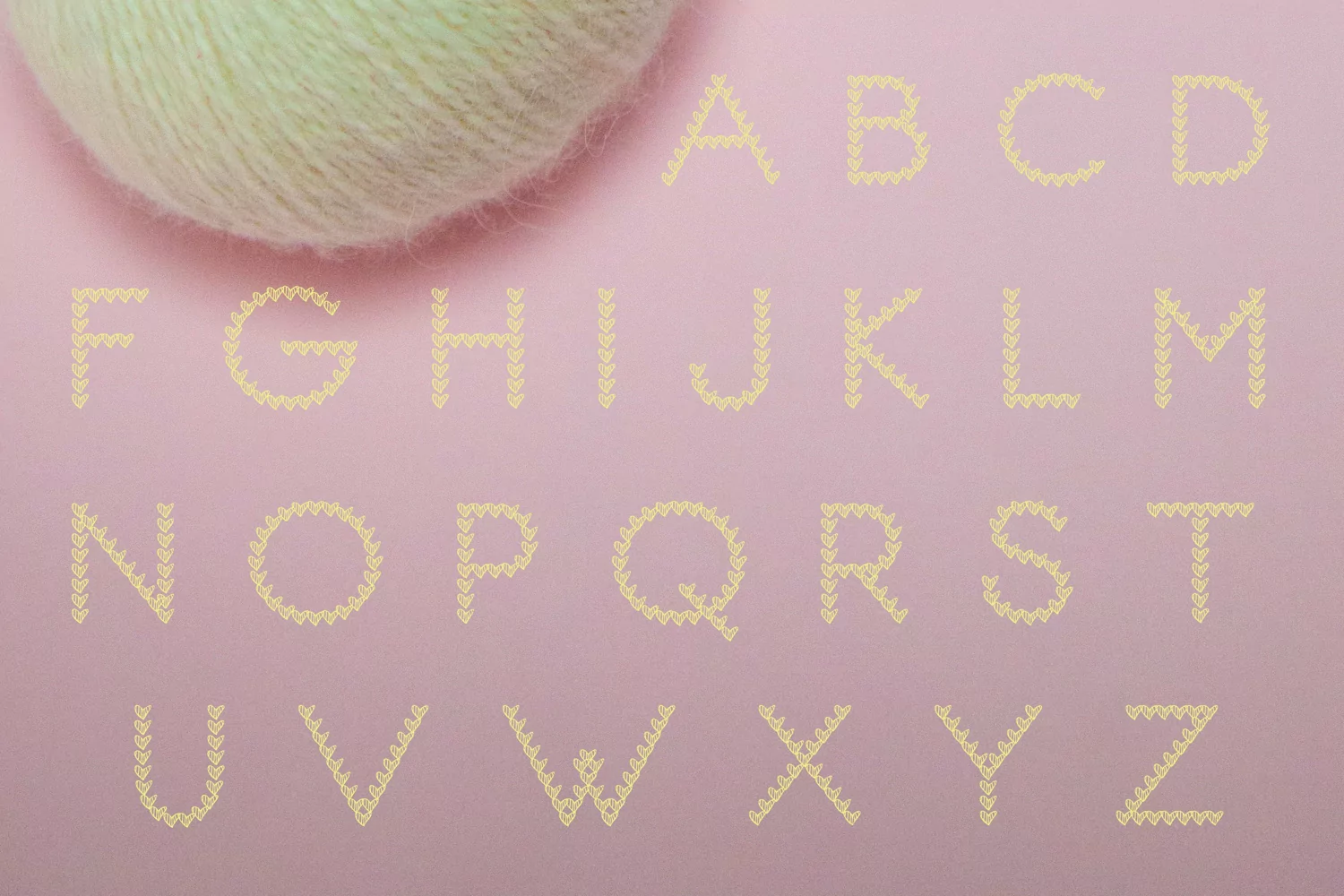
Fabric Heart Single Knitted Font
Presenting Cute font for you. This Special Paper Cut Fabric Heart can be used in tons of projects specially in child and new born projects. You can use it for craft purpose and this will looks great on shirts, printing material and other stuff.
2- Letters A to Z and 0 to 9
3- Super Cute and Creative, Papercut Style